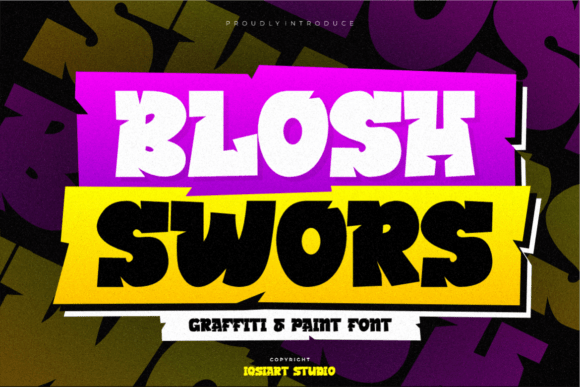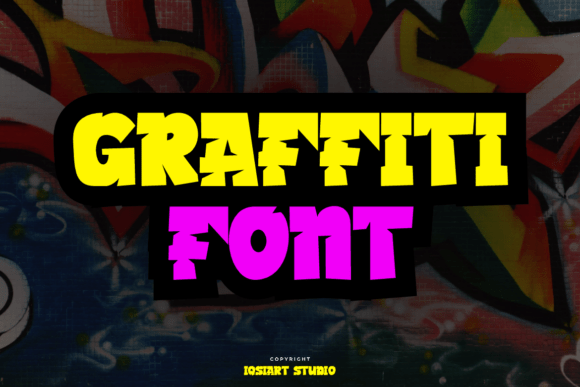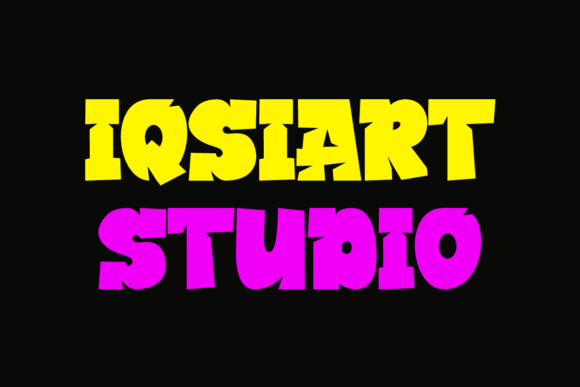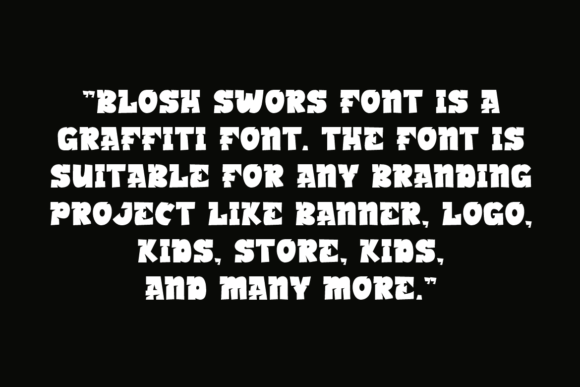
Blosh Swors Font
About the Blosh Swors Font
Let us introduce you to Blosh Swors Font, where timeless design meets modern craftsmanship. Blosh Swors is a bold and electrifying graffiti and paint font that bursts with street-style attitude. With jagged edges, chunky shapes, and a hand-sprayed vibe, it’s made to stand out in urban designs, hip-hop posters, apparel, and youth-oriented branding.
Blosh Swors excels in large-scale applications such as headlines, posters, and short impactful slogans where its bold character can truly shine. It’s ideal for branding projects targeting a young, rebellious audience—think streetwear, music festivals, or edgy gaming brands. Avoid using it for body text or UI elements; its irregular forms hinder readability in smaller sizes or continuous blocks of text.
Pairing Blosh Swors with a clean sans-serif like Open Sans for body copy creates a strong contrast, balancing the raw energy of Blosh Swors with a legible, neutral typeface. Alternatively, a geometric sans-serif like Futura would offer a modern, sophisticated counterpoint, highlighting Blosh Swors’ rebellious spirit.
The font’s core personality is undeniably rebellious and energetic. Its raw, hand-painted aesthetic projects a youthful, urban vibe, making it a powerful tool for brands seeking to communicate a bold and disruptive image.
Blosh Swors Font Usage Examples
Blosh Swors Font Example